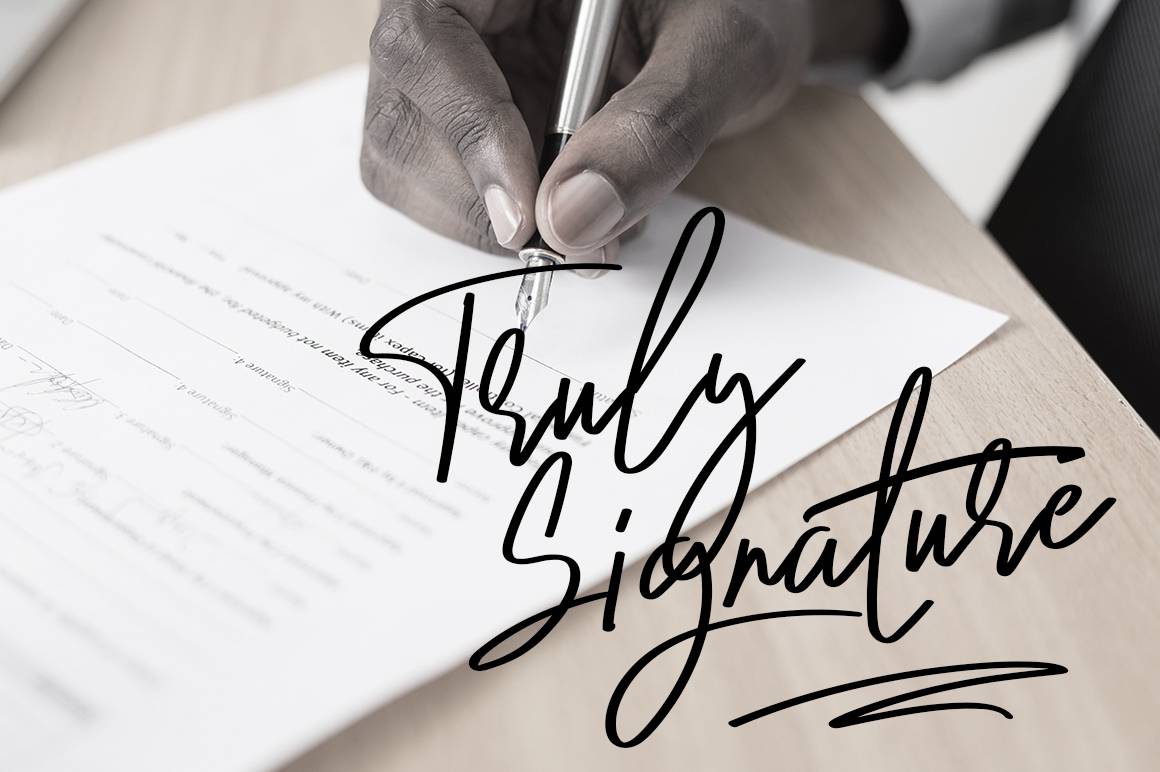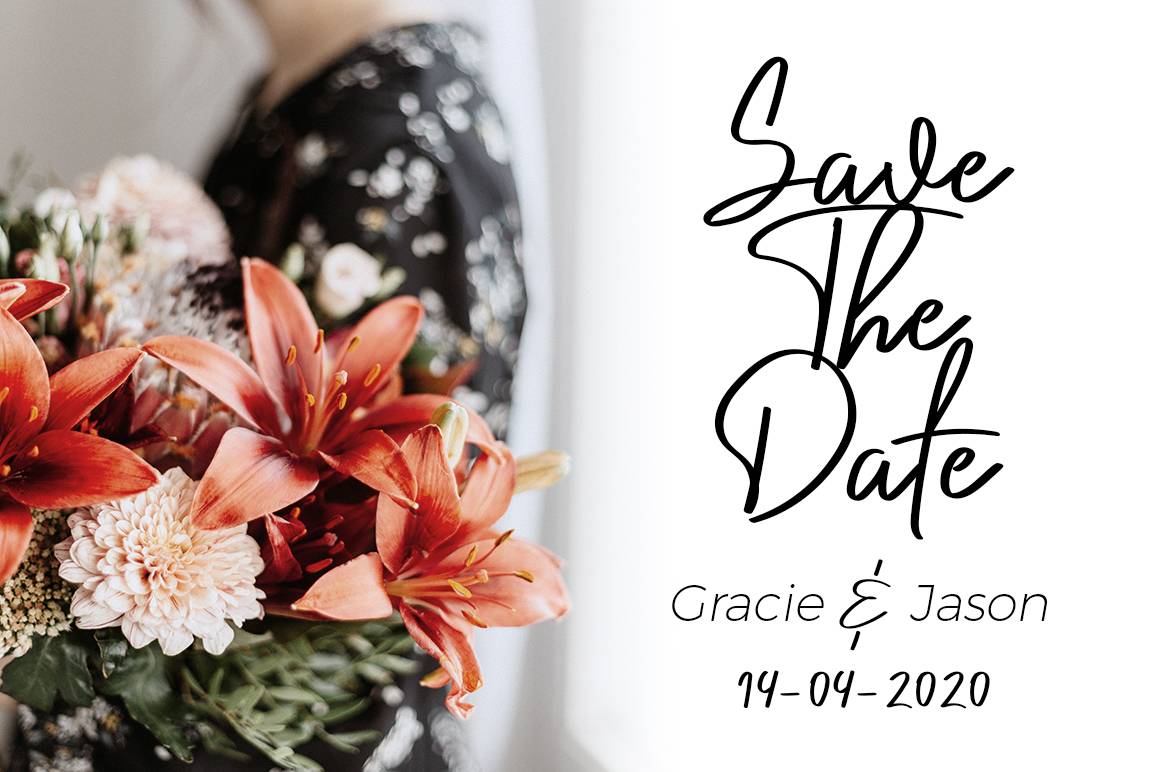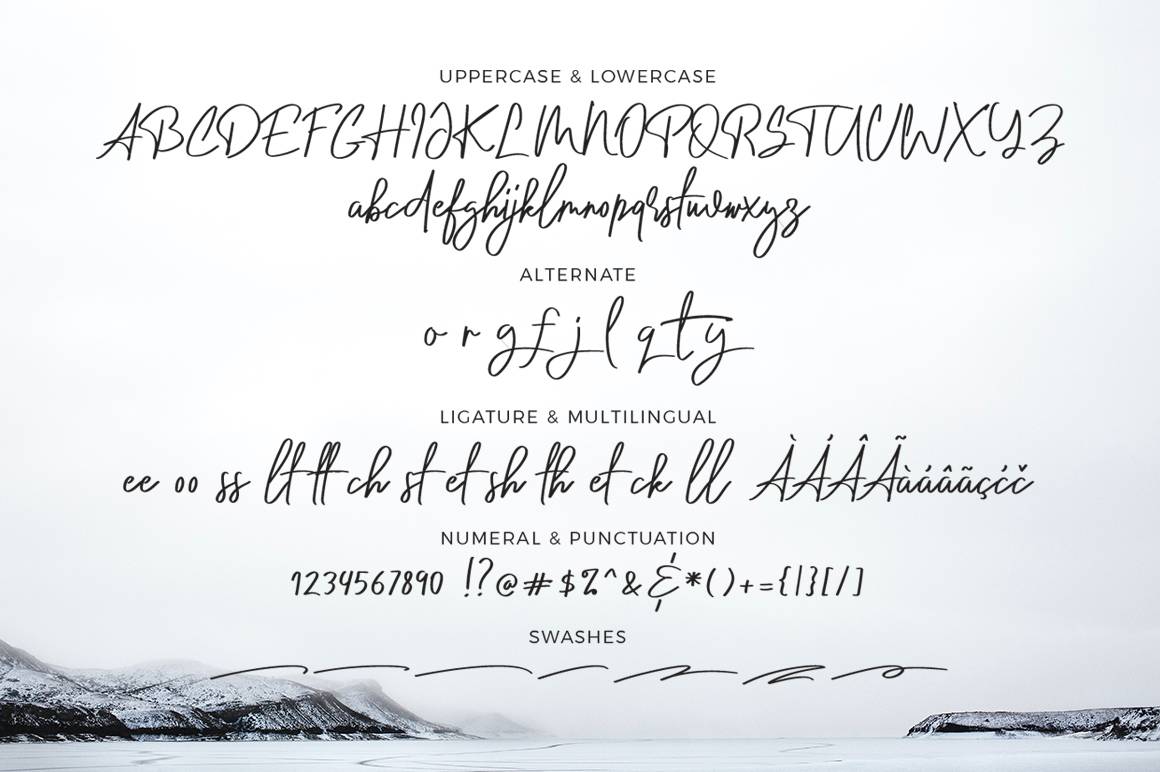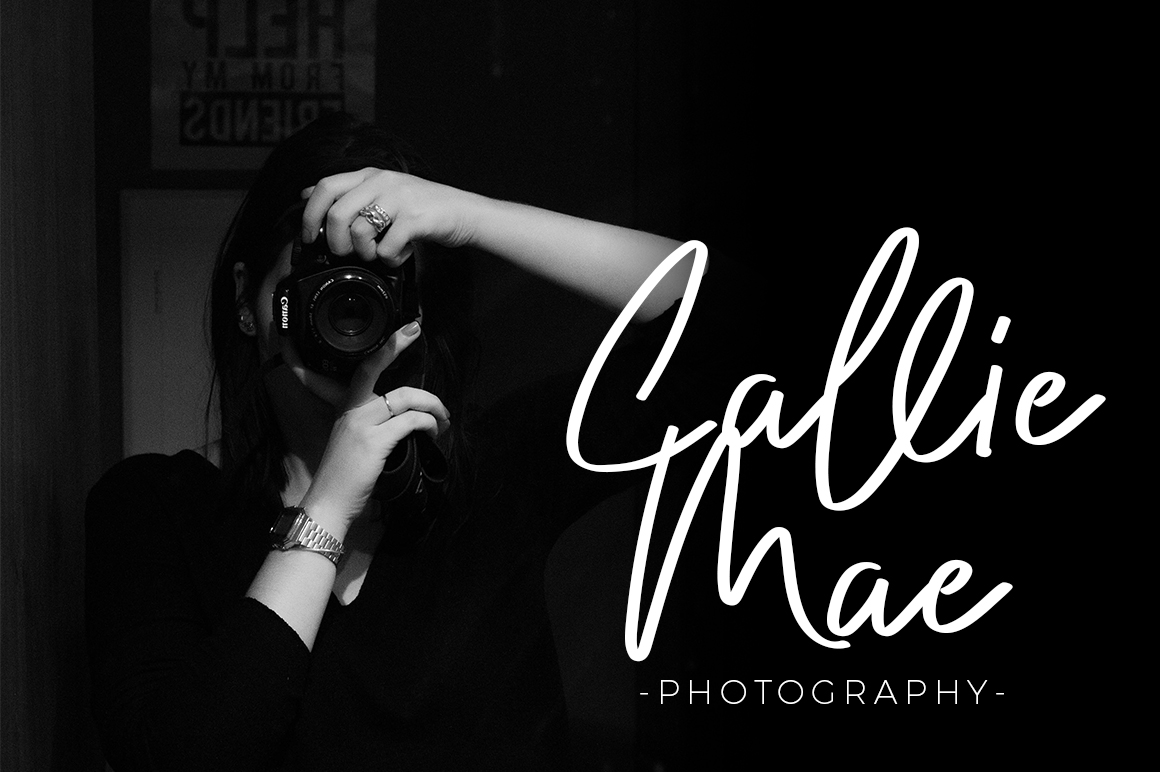
Curly Millie Font
Curly Millie Font is modern & fresh signature style script font. With a stylish handwritten style make this font looks natural, classy, and perfect for any awesome projects that need handwriting taste. With exaggerated strokes and a bouncy baseline, Curly Millie has an unmistakable charm; perfect for logos, wedding stationery, cards, gift designs, photography, watermark, product packaging, and handwritten quotes. This free typeface was designed by a talented Typesthetic Studio . If you like it don’t forget to check out the full version.